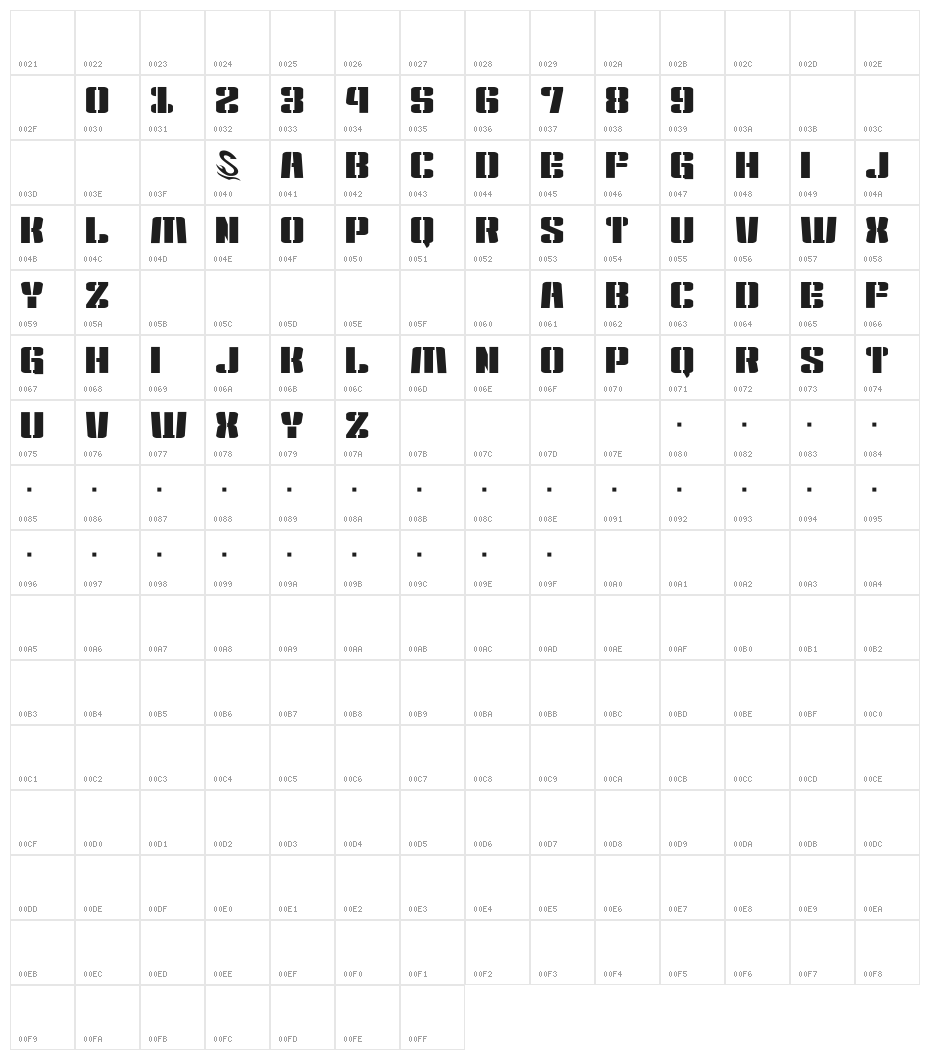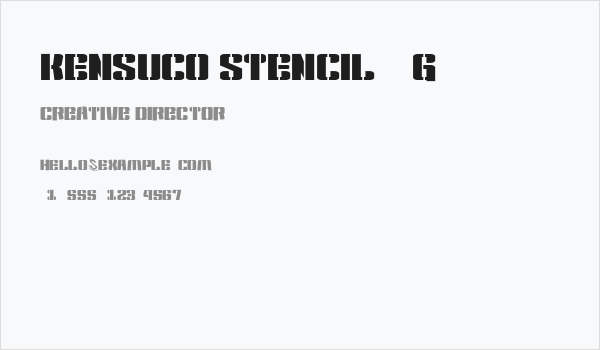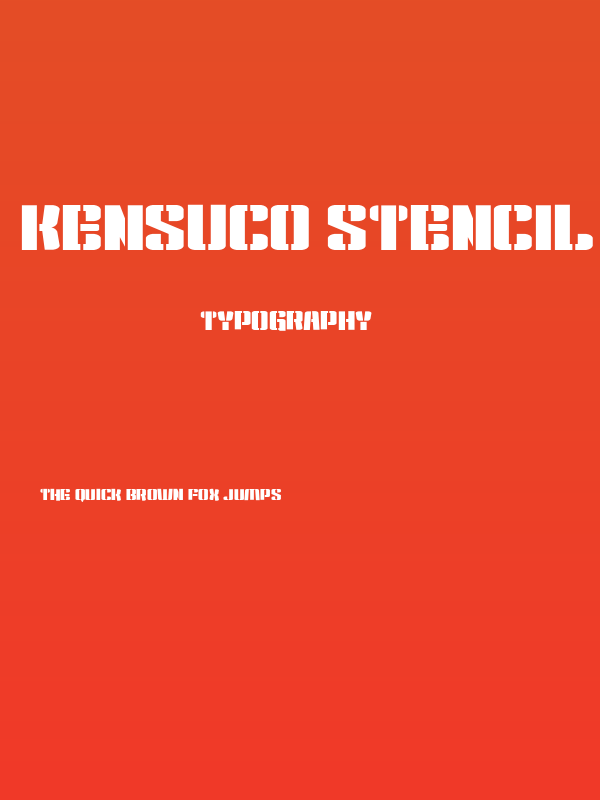
Kensuco Stencil__G Font
Kensuco Stencil__G Description
This font features a bold, stencil-like design with distinct cutouts in each character, giving it a rugged and industrial feel. The uppercase letters are uniform in height and width, creating a strong and cohesive appearance. The numbers and special characters maintain the same boldness and style, ensuring consistency across all elements. The font's geometric shapes and sharp edges contribute to its modern and utilitarian aesthetic, making it suitable for impactful and attention-grabbing designs.
| Overall Style | Modern, Industrial |
| Proposed Projects | Ideal for military-themed designs, industrial branding, posters, and signage where a strong, bold statement is needed. |